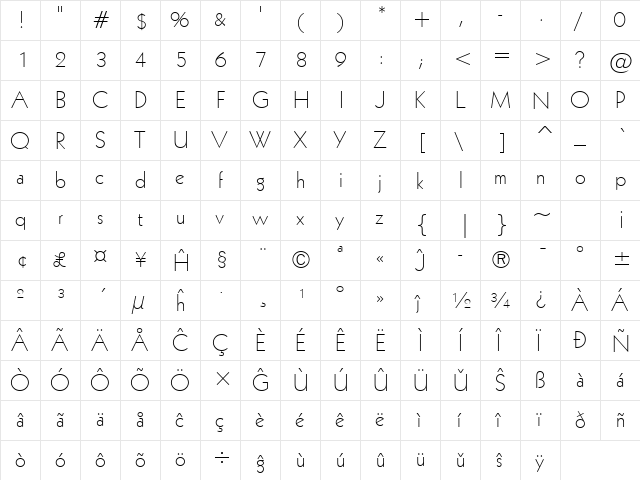
Geometr231 Lt BT Eo Light
Design Context for Geometr231 Lt BT Eo Typeface
Geometr231 Lt BT Eo offers clean, dependable letterforms without strong stylistic allegiance, making it a practical choice for designers who need flexibility. Its slender proportions lend an understated elegance to any composition.